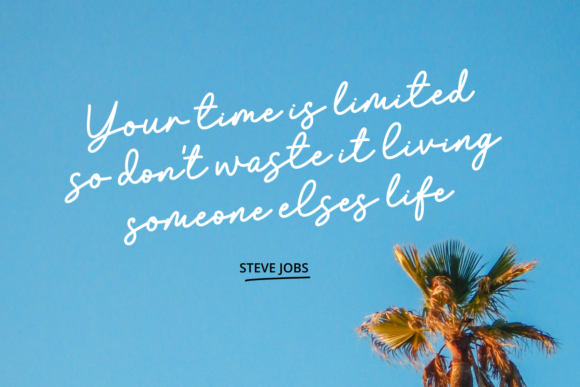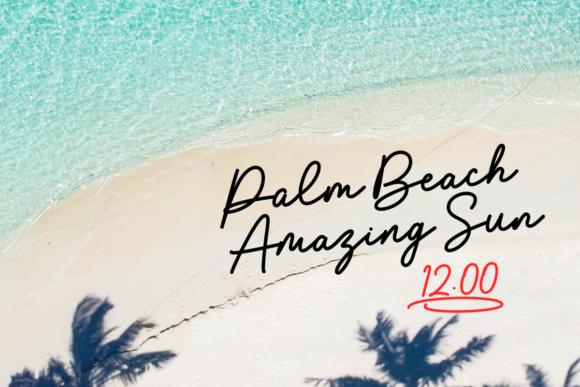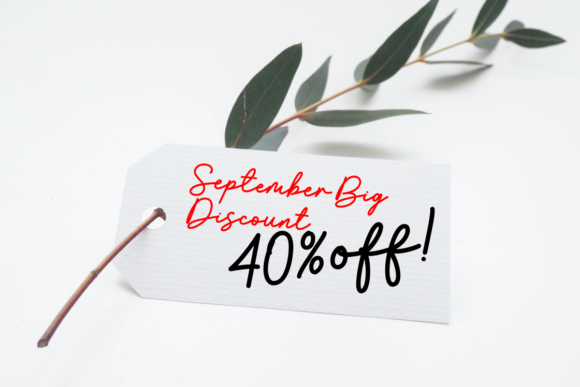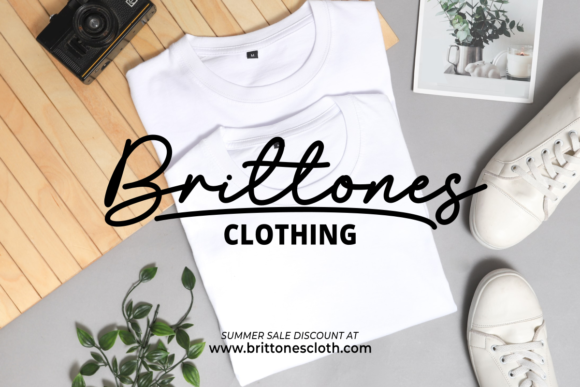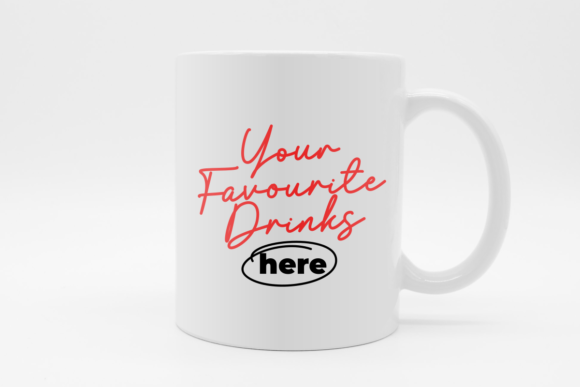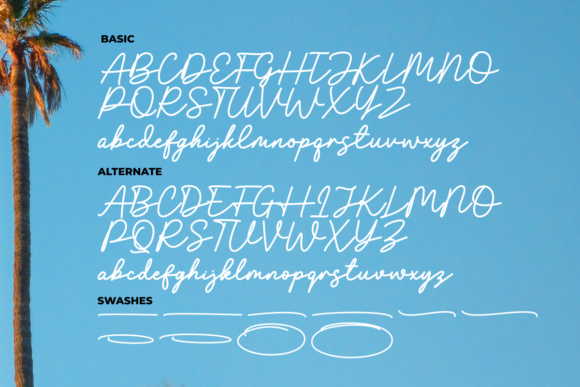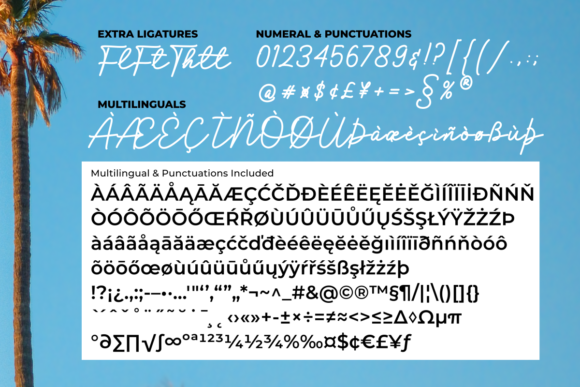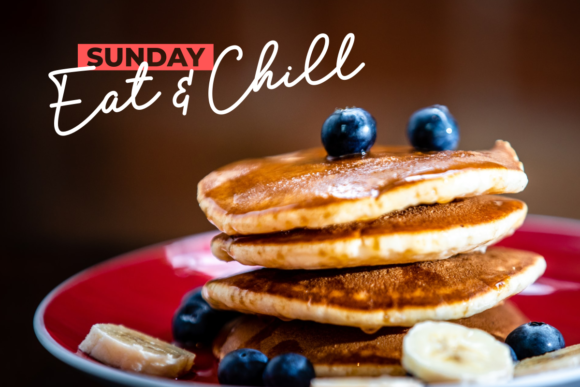
Holla Summer Font
Holla Summer is a lovely script font featuring charming, playful characters that seem to dance along the baseline. This font is PUA encoded which means you can access all of the glyphs and swashes with ease!